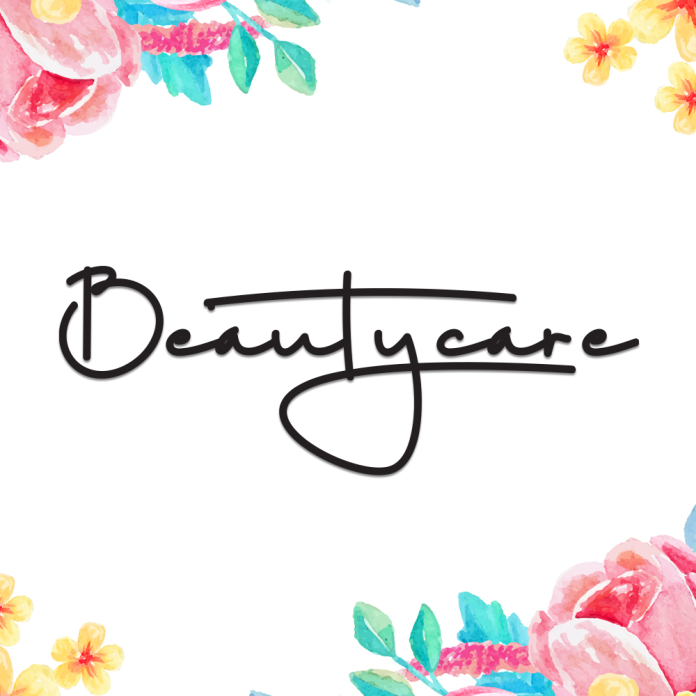
Beautycare is a graceful handwritten font designed to elevate your beauty and wellness branding. With its smooth, delicate strokes and natural flow, it’s perfect for cosmetic packaging, skincare logos, fashion branding, social media quotes, and lifestyle blogs.
It brings elegance, calm, and a personal touch to your design.
Elegant Handwriting Style
Uppercase & Lowercase Letters
Perfect for Beauty & Skincare Branding
Let your brand speak beauty and confidence with Beautycare – the handwritten font that radiates softness and sophistication.